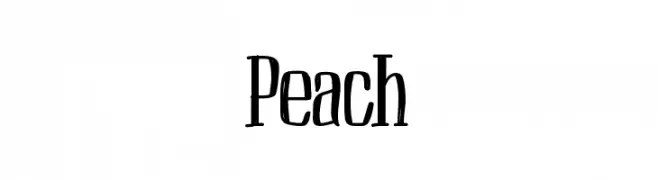
( Mike Brando - BrandoArts.com )
A tall, narrow, and modern font with a sleek, consistent stroke width.
( Letterhend Studio - Hendry Juanda - creativemarket.com/letterhend )
A vibrant, brush-style font with a dynamic and artistic flair.
( Max Kuivenhoven - www.lovelybird.co )
A playful, brush-stroke font with a hand-drawn, artistic style.
( Jaime Rangel Castro )
A dynamic and elegant script font with smooth curves and a slight slant.
( Jaime Rangel Castro )
A lively and elegant script font with flowing, cursive letterforms.
( Jaime Rangel Castro )
A playful, handwritten-style font with smooth, fluid strokes and dynamic movement.
( Jake Luedecke - jakeluedecke.weebly.com/ )
A vintage-modern font with tall, narrow letterforms and subtle serifs.
( Meaghan Wong - 4am.firewish.net )
A playful, casual handwritten font with smooth, rounded strokes.
( Meaghan Wong - 4am.firewish.net )
A playful, handwritten font with a casual and informal style.
( Meaghan Wong - 4am.firewish.net )
A casual, handwritten font with fluid strokes and a lively feel.